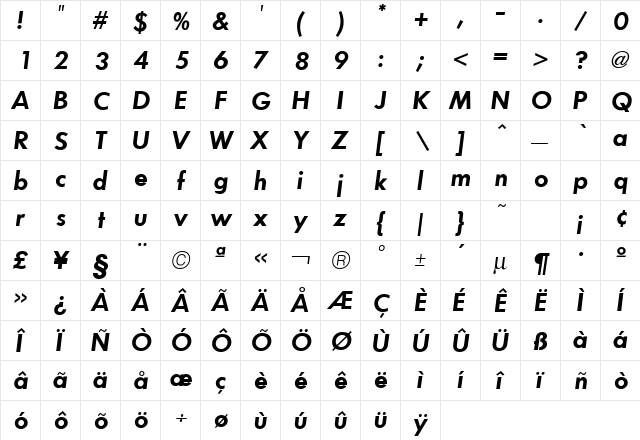
Futura ICG Demi Oblique
Futura ICG has a distinctly futuristic character, with geometric precision and clean angles that feel at home in technology, gaming, and sci-fi contexts. Its italic angle brings a sense of urgency and motion to the letterforms.